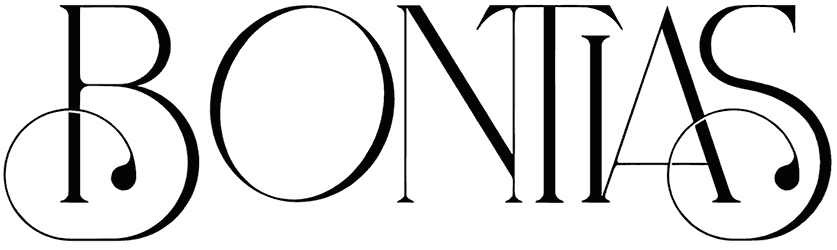
Bontias Font
While classic fonts have waned in popularity, Bontias can elevate your position in the world. This retro font can add charm and personality to your designs, whether you use it for headlines, body text, or even as an accent.
To keep your plans from looking old, using this ligature font; you can pair it with cleaner and more modern options in the RB library. Both styles can make your designs stand out and, together, compensate for the lack of small letters.